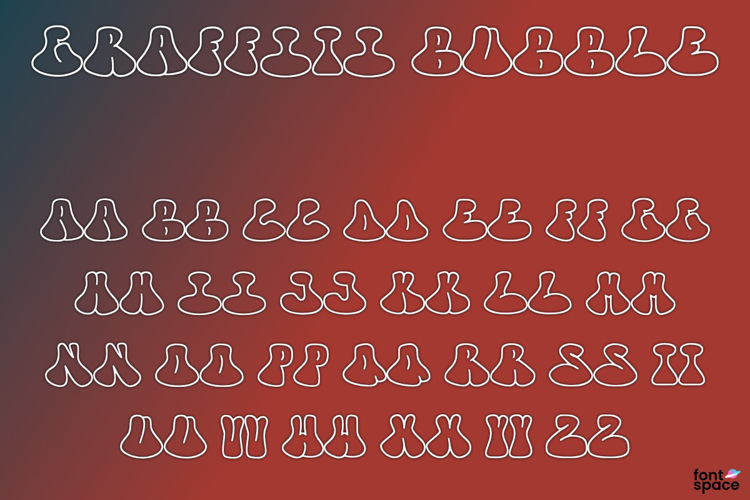
Graffiti Bubble Font
A bubble-style graffiti font with bold curves and playful edge — perfect for loud titles, street art, and designs that pop with personality.